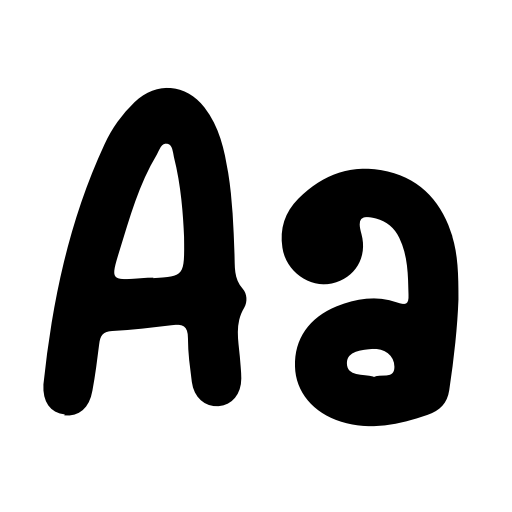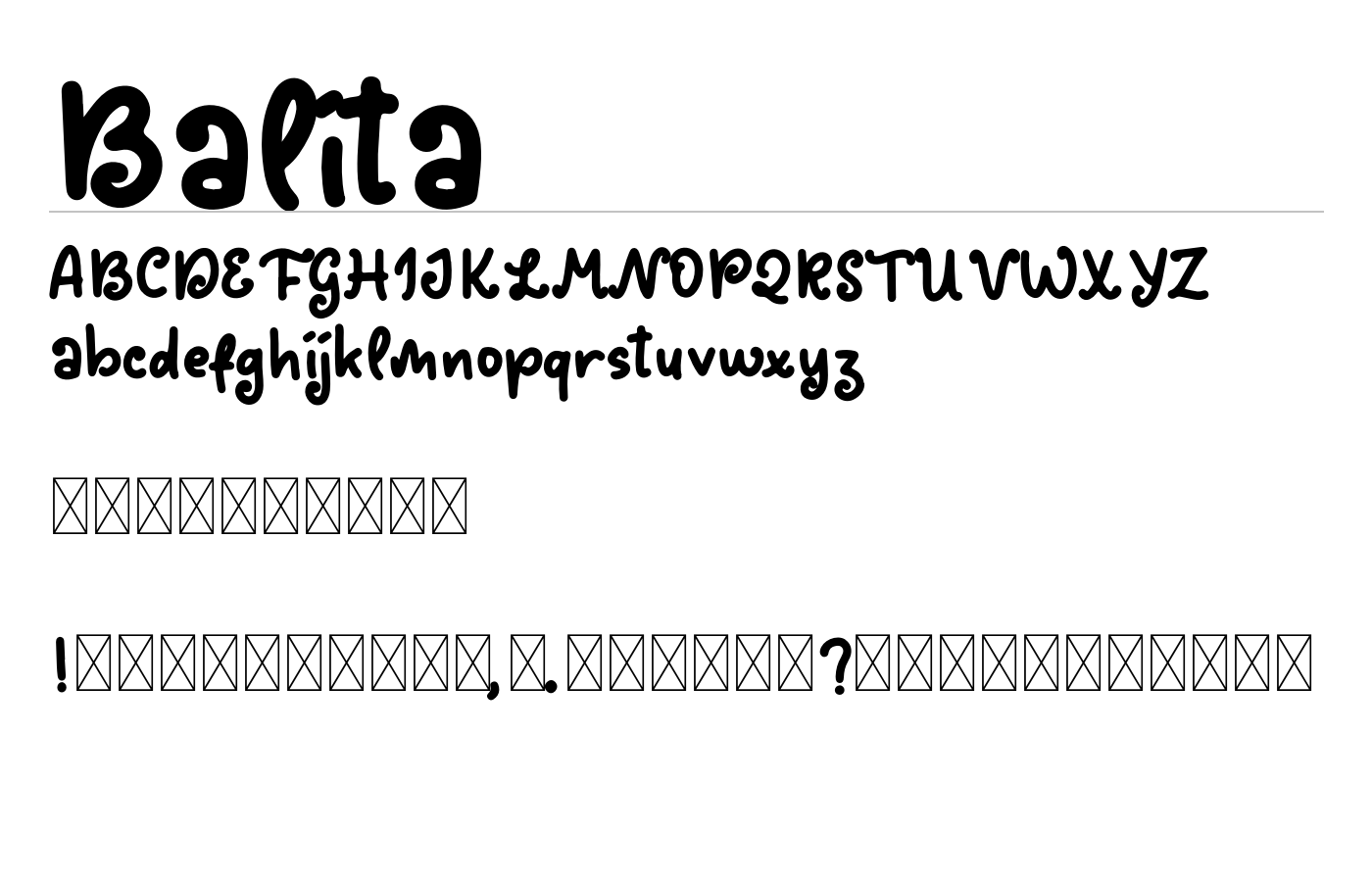
Balita is a playful, hand-drawn sans serif font characterized by its rounded, bold strokes and whimsical letterforms that evoke a casual, friendly feel. Its irregular shapes and lively curves make it ideal for informal, creative projects like children’s books, posters, and branding that seeks an approachable and fun personality. This font works best in headlines and display use where its quirky charm can truly stand out.
Balita Font
About Balita Font